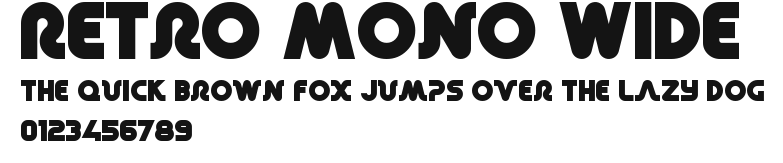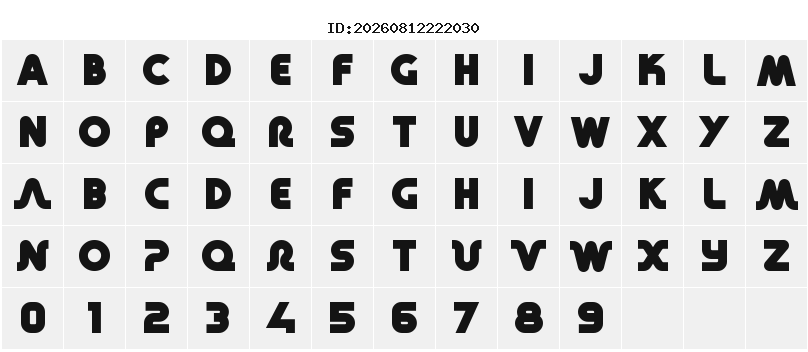
• Font Name: Retro Mono Wide
• Designer: Thessalos Design, Ltd
About Retro Mono Wide.ttf
Retro Mono Wide.ttf is a modern, elegant sans-serif font designed for ultimate readability and visual harmony. Perfect for branding, headlines, web design, and print materials.